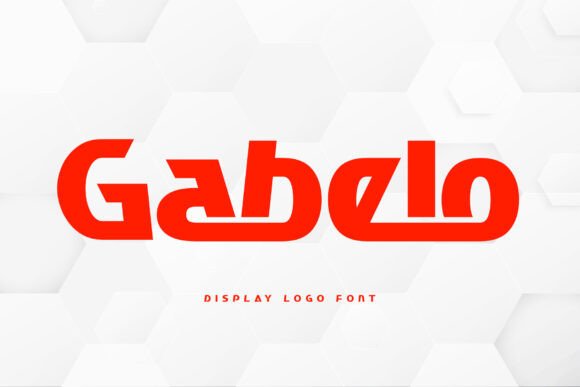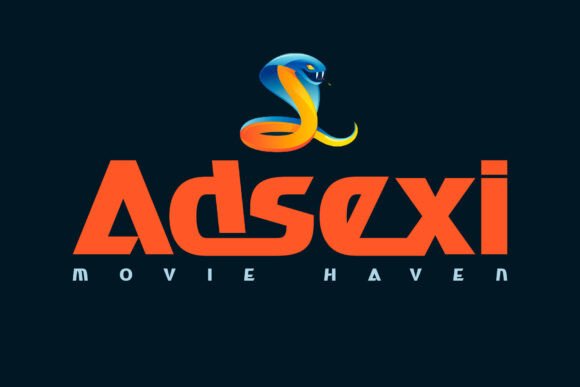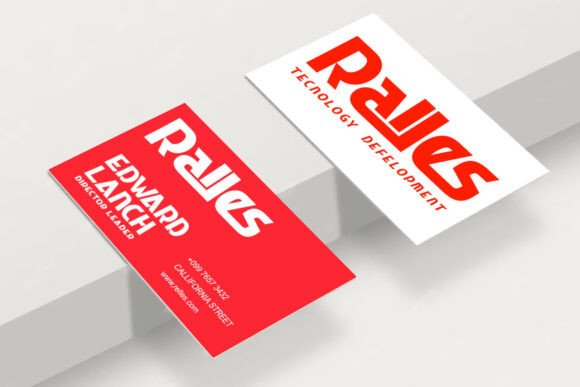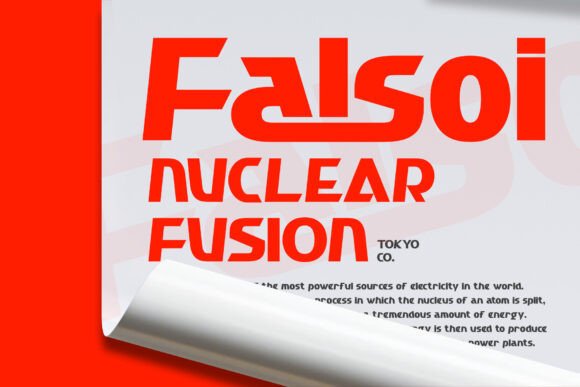
Gabelo Font: Modern Display Font for Logo Design & Branding
About the Gabelo Font
Let us introduce you to Gabelo Font, where timeless design meets modern craftsmanship. Gabelo is a sleek and futuristic font designed for brands and projects that embrace innovation and forward-thinking design. With its clean lines, sharp edges, and modern aesthetics, this font is perfect for technology-driven businesses, digital products, and creative projects that aim to convey a cutting-edge and sophisticated look.
Gabelo excels in headlines, short impactful statements, and branding applications where a strong, modern aesthetic is desired. It’s ideal for logos, posters, and website headers. However, its condensed nature and sharp strokes make it less suitable for body text or long-form content; readability suffers at smaller sizes. Avoid using Gabelo for UI elements requiring extensive text.
Its bold and futuristic personality pairs well with softer counterparts. Consider pairing it with a neutral sans-serif like Lato for body text to create contrast and balance. Alternatively, a classic serif such as Garamond adds a touch of sophistication and traditional counterpoint to Gabelo’s modern edge. For a more playful approach, a rounded geometric sans-serif could be used.
Gabelo projects a confident, high-tech image, perfect for brands in technology, finance, and design. Its sleekness and precision communicate innovation and authority.